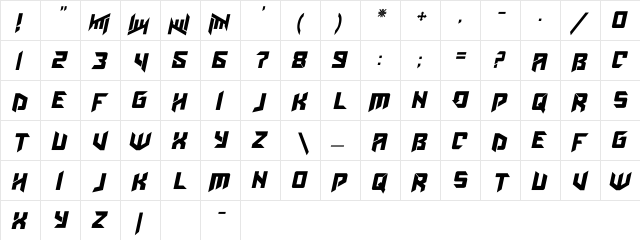
AmazObitaemOstrovItalic Regular
Design Context for AmazObitaemOstrovItalic Typeface
AmazObitaemOstrovItalic is a composed and adaptable typeface that performs quietly and consistently across a wide range of design contexts. The dynamic lean of this cut emphasises speed and emphasis in any layout.
Pro Tip: Try AmazObitaemOstrovItalic for annotation and caption copy alongside an upright companion — the contrast in angle creates a dynamic but ordered typographic system.